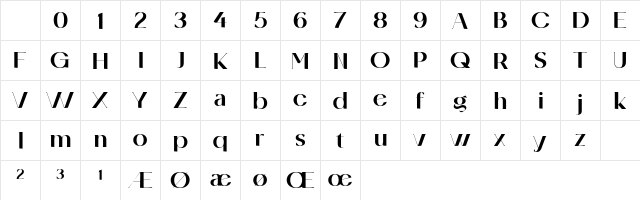
Complete Flicket Personal Use Regular glyph index. Displaying only characters natively supported by Flicket Personal Use Regular font.
Flicket Personal Use is a composed and adaptable typeface that performs quietly and consistently across a wide range of design contexts.